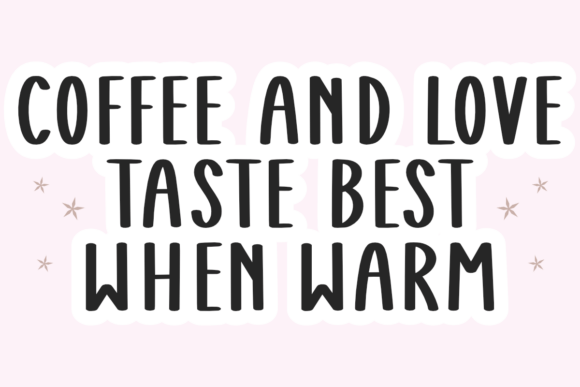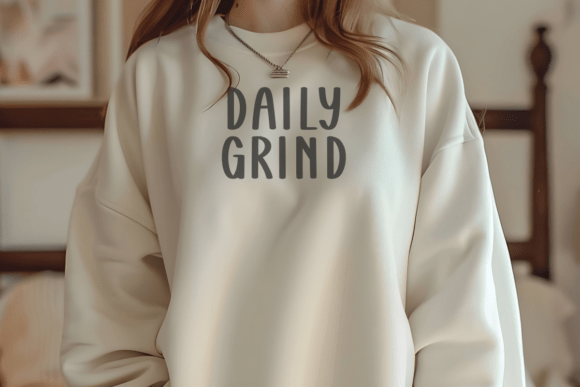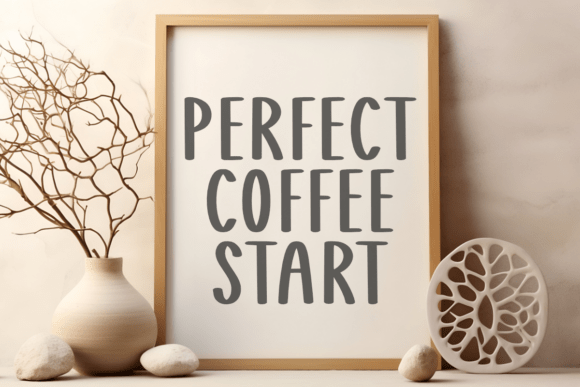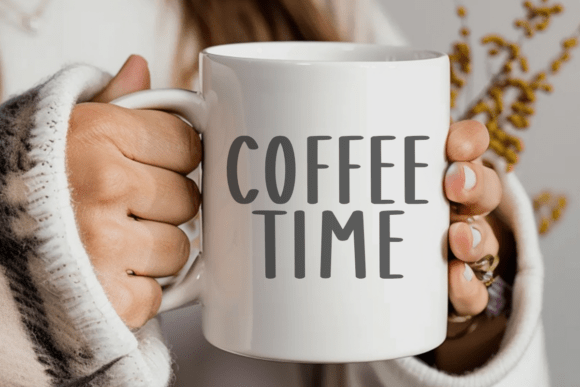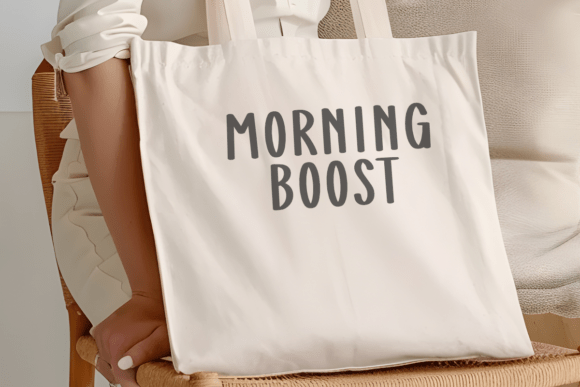
Coffee Tumbler Font: The Perfect Blend for Cozy Branding and Modern Designs
Are you a designer or crafter looking for a font that captures the essence of warmth and coziness? Look no further than the Coffee Tumbler Font. This clean yet playful display sans serif font is designed to elevate your branding and modern designs, giving them a unique and inviting touch.
What Makes Coffee Tumbler Font Special?
Coffee Tumbler Font is a one-of-a-kind typeface that boasts tall, slender characters with a hand-drawn feel. This distinctive feature makes it perfect for a variety of applications, including product packaging, lifestyle blog titles, and everyday print materials. The font’s clean lines and playful vibe strike the perfect balance between modernity and approachability, making it an excellent choice for designers and crafters seeking to create a lasting impression.
Key Features of Coffee Tumbler Font
- Clean and Playful Design: Coffee Tumbler Font features a unique blend of clean lines and playful curves, making it perfect for designs that require a touch of whimsy.
- Tall and Slender Characters: The font’s tall, slender characters evoke a hand-drawn feel, adding a personal touch to your designs.
- Display Sans Serif Font: As a display sans serif font, Coffee Tumbler Font is ideal for headlines, titles, and other display text.
- Cozy Branding and Modern Designs: The font’s warm and inviting feel makes it perfect for cozy branding and modern designs that require a touch of personality.
Use Cases for Coffee Tumbler Font
Coffee Tumbler Font is a versatile typeface that can be used in a variety of contexts. Here are some use cases to get you started:
- Product Packaging: Add a touch of personality to your product packaging with Coffee Tumbler Font. The font’s hand-drawn feel and playful vibe make it perfect for labels, tags, and other packaging materials.
- Lifestyle Blog Titles: Elevate your lifestyle blog titles with Coffee Tumbler Font. The font’s clean lines and modern feel make it perfect for blog headers, titles, and other typography.
- Everyday Print Materials: Use Coffee Tumbler Font to add a touch of warmth and coziness to your everyday print materials, such as brochures, flyers, and posters.
Why Designers and Crafters Love Coffee Tumbler Font
Coffee Tumbler Font has quickly become a favorite among designers and crafters due to its unique blend of style and versatility. Here are some reasons why:
- Easy to Read: The font’s clean lines and simple design make it easy to read, even at small sizes.
- Highly Versatile: Coffee Tumbler Font can be used in a variety of contexts, from product packaging to lifestyle blog titles.
- Unique and Memorable: The font’s hand-drawn feel and playful vibe make it stand out from more traditional typefaces, adding a touch of personality to your designs.
Coffee Tumbler Font is a one-of-a-kind typeface that offers a unique blend of style, versatility, and personality. Whether you’re a designer or crafter looking to elevate your branding and modern designs, this clean yet playful display sans serif font is sure to impress. With its tall, slender characters and hand-drawn feel, Coffee Tumbler Font is the perfect choice for anyone seeking to add a touch of warmth and coziness to their designs.